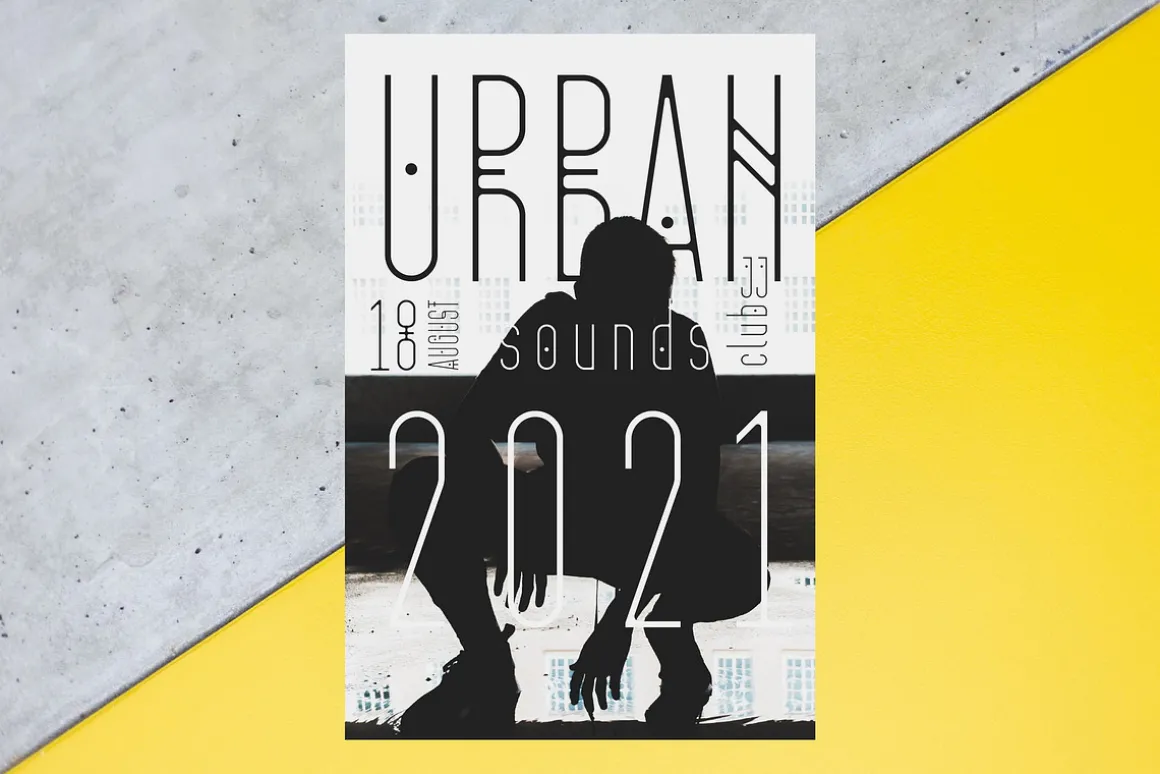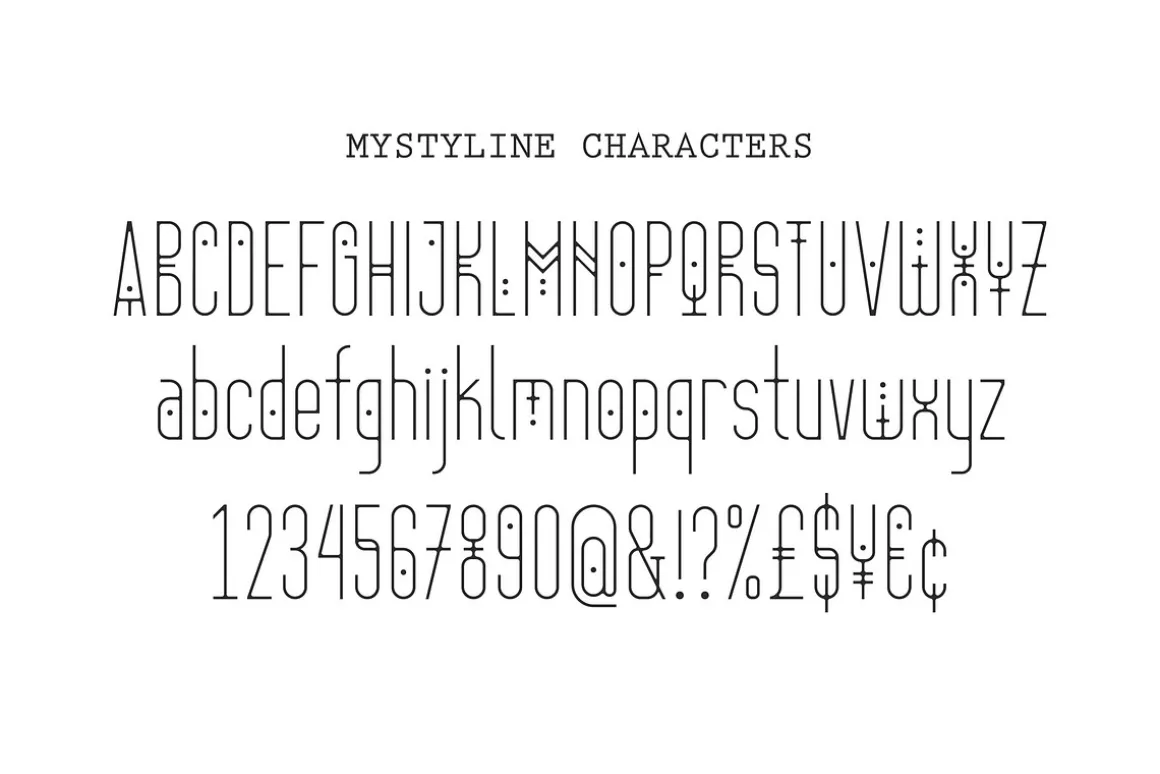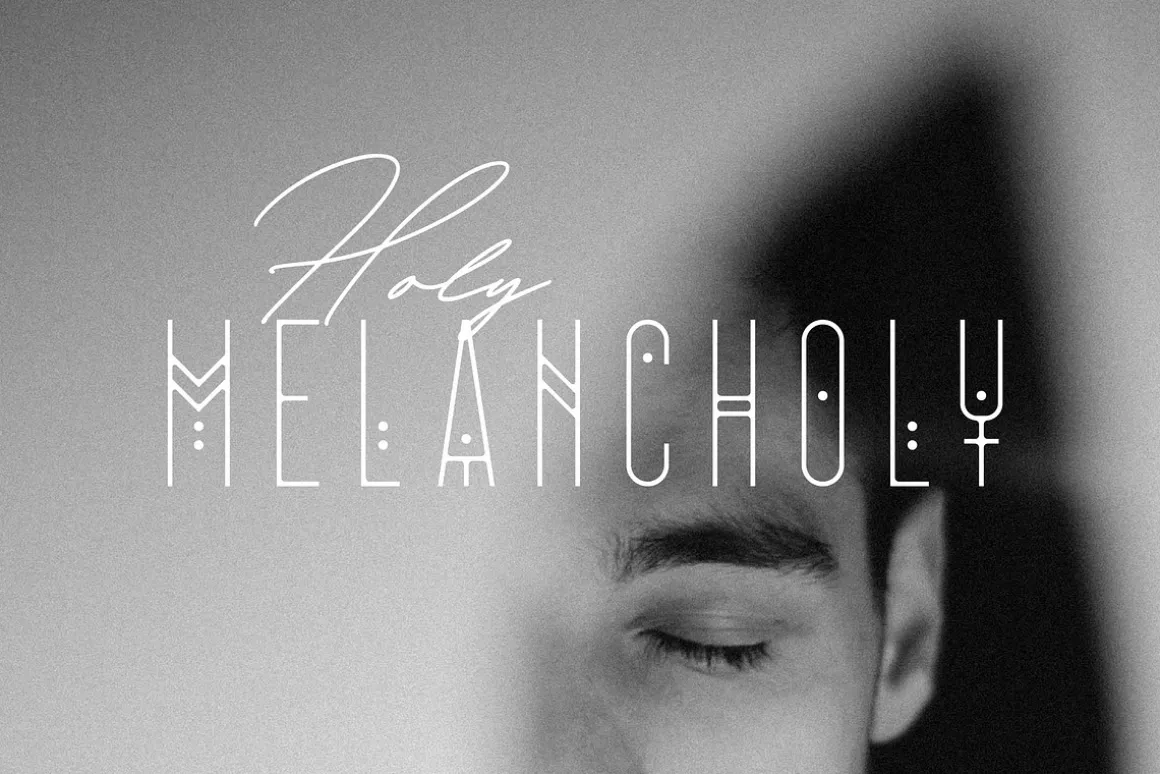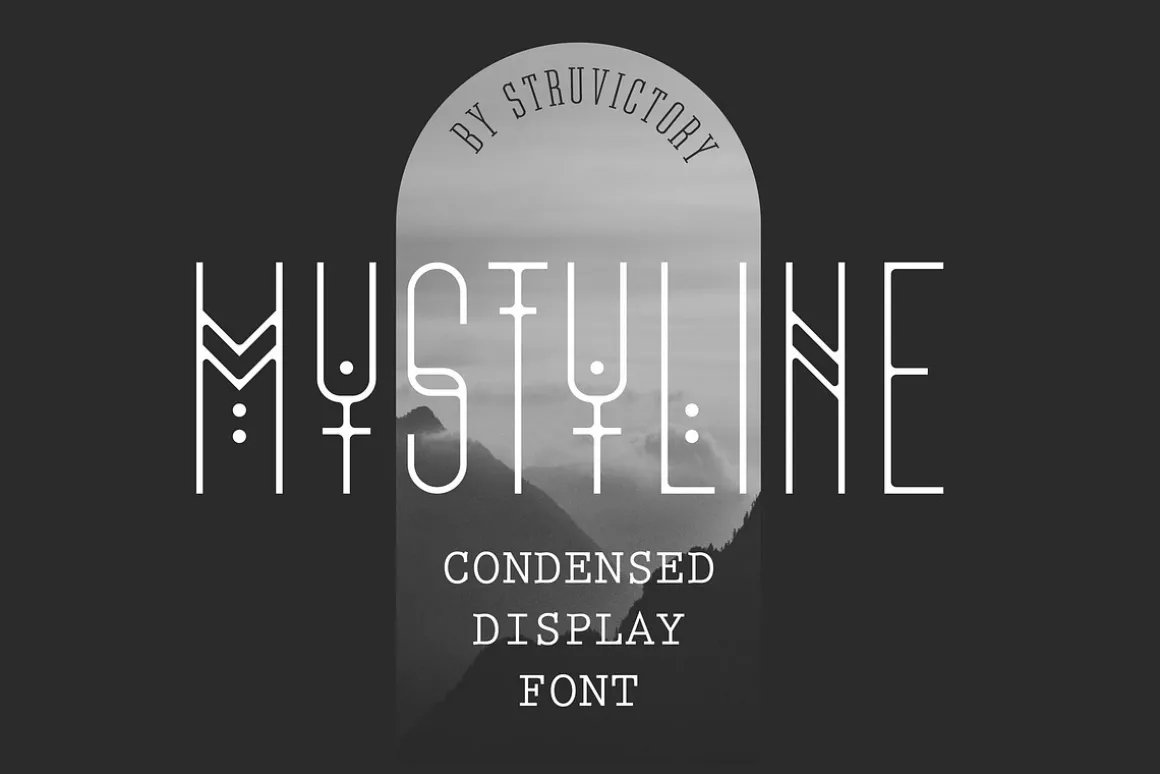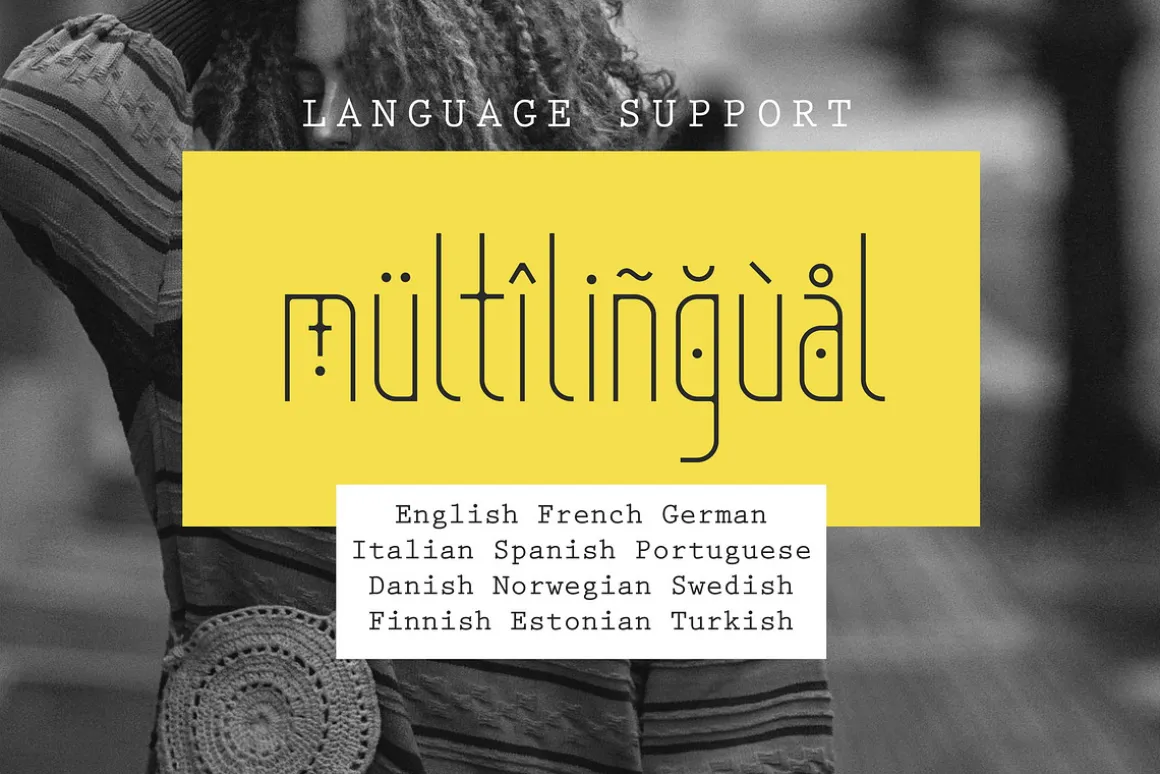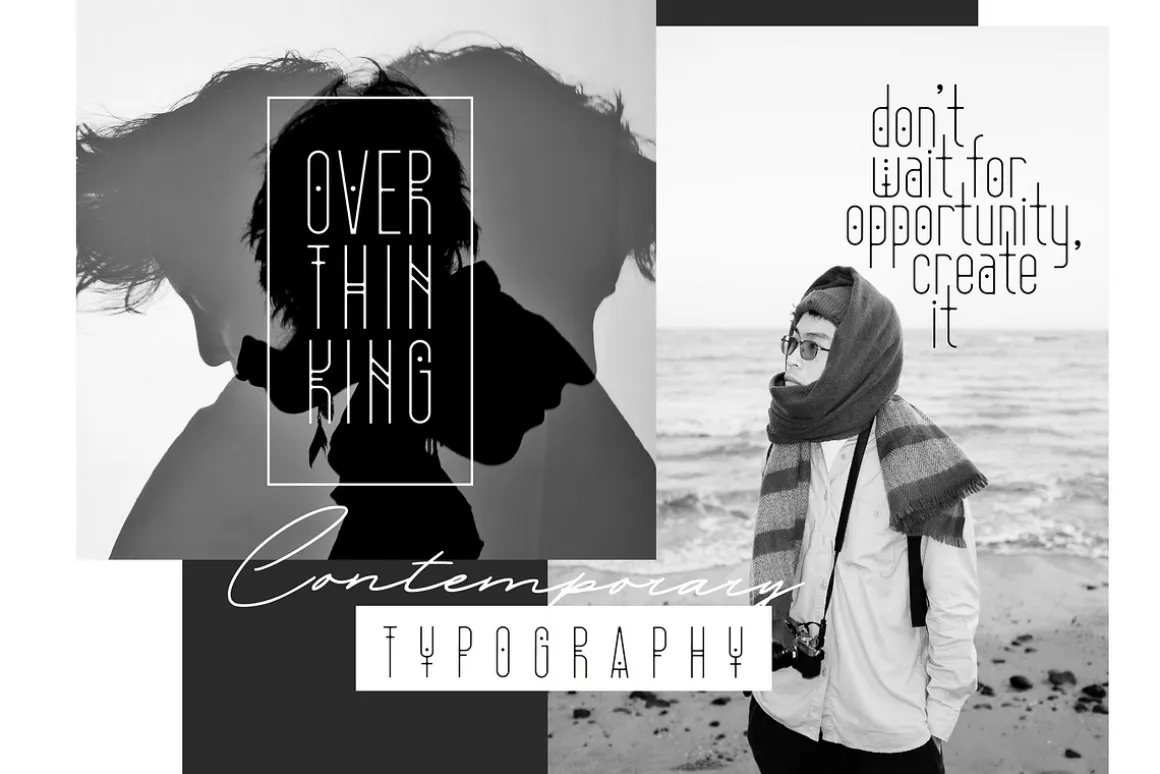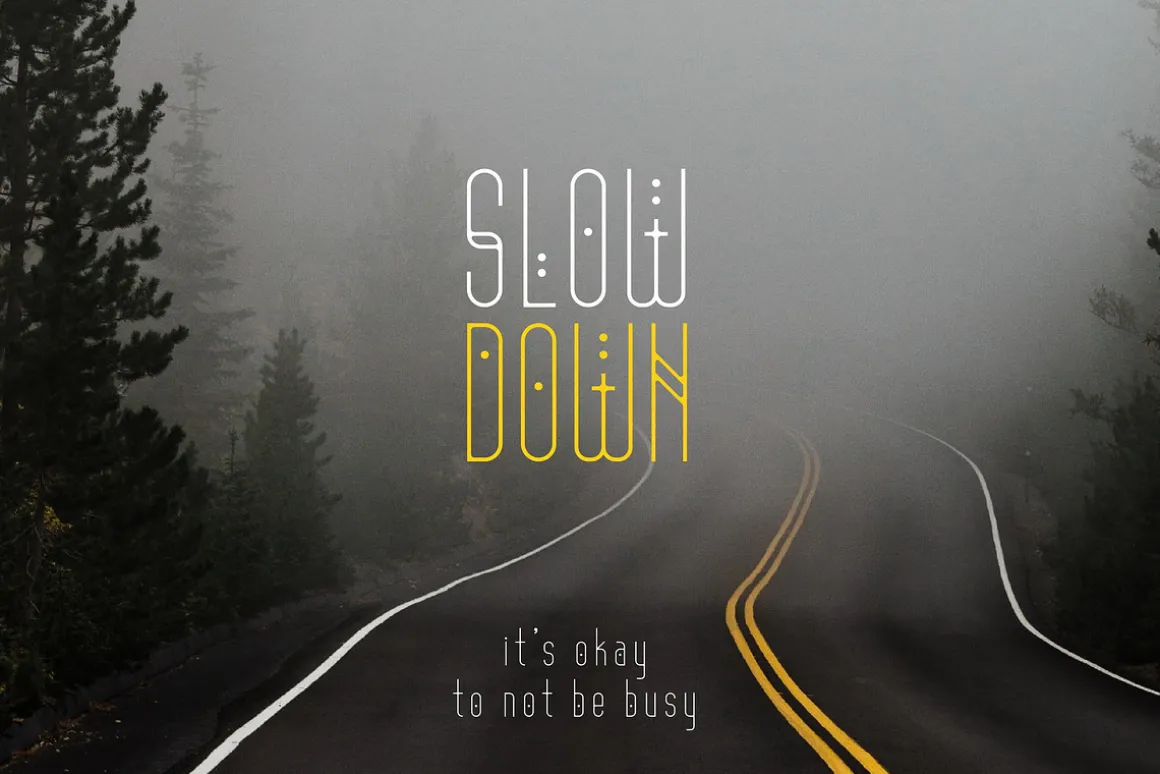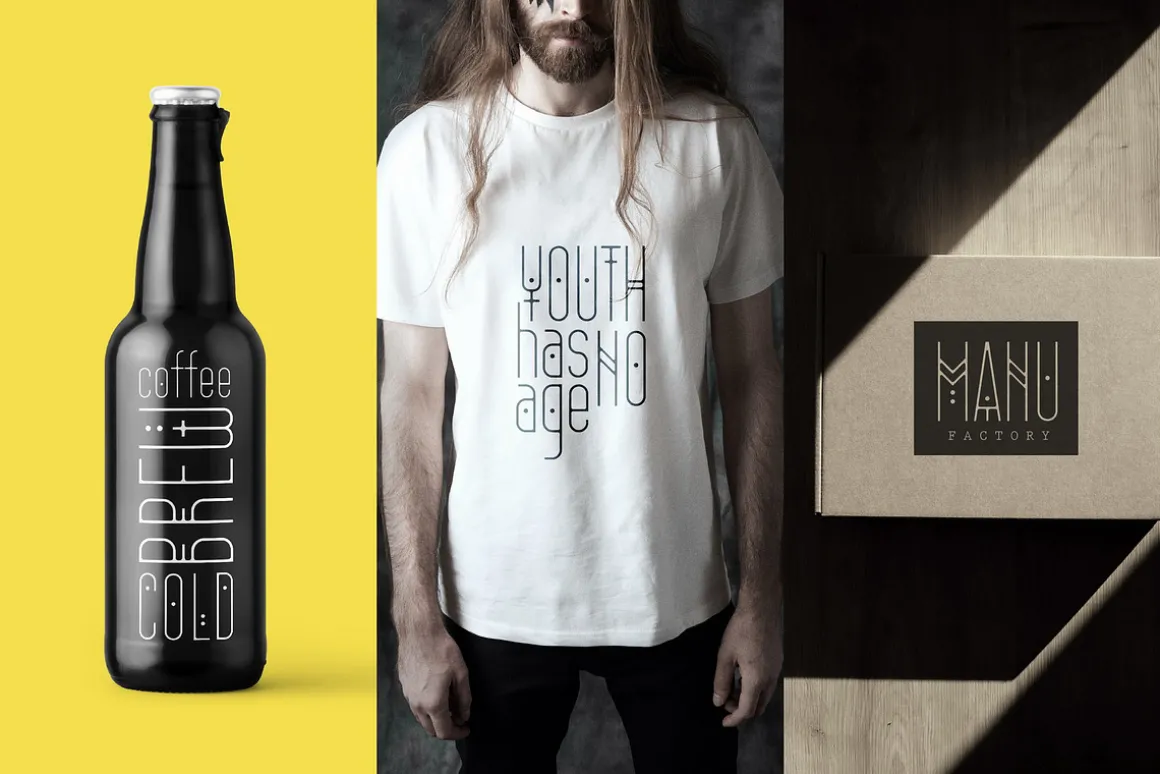
Mystyline is a modern thin line condensed font inspired by hipster aesthetics. The letters are decorated with lines and dots.
Mystyline is suitable for contemporary typographic posters (event design, movie posters, advertising, music production, photo overlays), hipster design etc.
The font has extensive language support, it includes English, French, German, Italian, Spanish, Portuguese, Danish, Norwegian, Swedish, Finnish, Estonian, Turkish. Need to know if your language is supported? Type any words in the text box below and see if all characters you need are there.